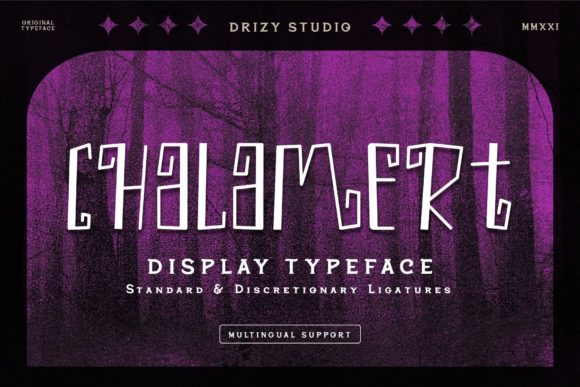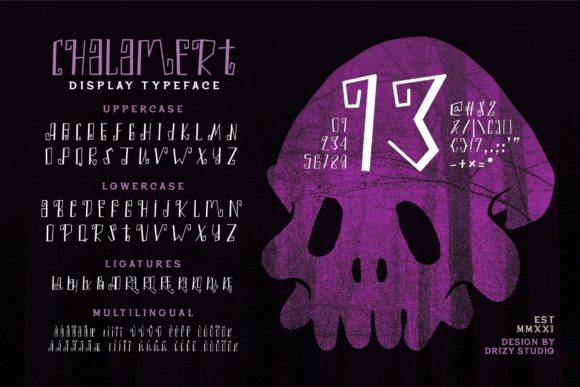
Chalamert
Chalamert: A Spooky Slab Serif Font for Halloween
Chalamert is a unique slab serif font that brings a creepy vibe to your designs. This versatile typeface is perfect for Halloween projects and other creations that need a scary touch.
Key Features of Chalamert
• Spooky Design: Has eerie letters that create a Halloween mood.
• Slab Serif Style: Includes thick, square serifs typical of slab fonts.
• Flexible Use: Works well for many projects, from cards to clothes.
• Halloween-Ready: Perfect for making scary visuals for the spooky season.
• Eye-Catching Details: Unique features that make designs stand out with a creepy look.
Best Uses for Chalamert
Chalamert works especially well for:
• Halloween cards and invites
• Scary posters and ads
• Horror movie titles
• Spooky social media posts
• Halloween clothing designs
• Creepy book covers and packaging
When using Chalamert in your designs, try these ideas:
• Use for headlines to maximize its spooky impact
• Try different sizes to show off the font’s eerie details
• Pair with simpler fonts for body text to create contrast
• Take advantage of its Halloween style for seasonal projects
Chalamert is a great choice for designers wanting a spooky slab serif font. It stands out in typography with its ability to enhance Halloween projects. Whether you’re working on logos for horror brands or making Halloween party layouts, Chalamert offers both creepiness and versatility.
Moreover, adding Chalamert to your projects can lift your designs with its spooky style. From scary cards to chilling movie titles, this font creates memorable typography. It appeals to those seeking a Halloween look. Additionally, it’s flexible enough for various uses, from vintage-inspired designs to playful layouts needing a touch of spookiness.
Furthermore, Chalamert adapts well to different moods. It can create a magical atmosphere for Halloween content or aim for a more eerie mood in your designs. Its flexibility allows it to work in both vintage-style horror projects and modern spooky designs. Lastly, for those wanting to add Halloween spirit to their work, this font can even enhance seasonal creations with a unique, haunting twist.